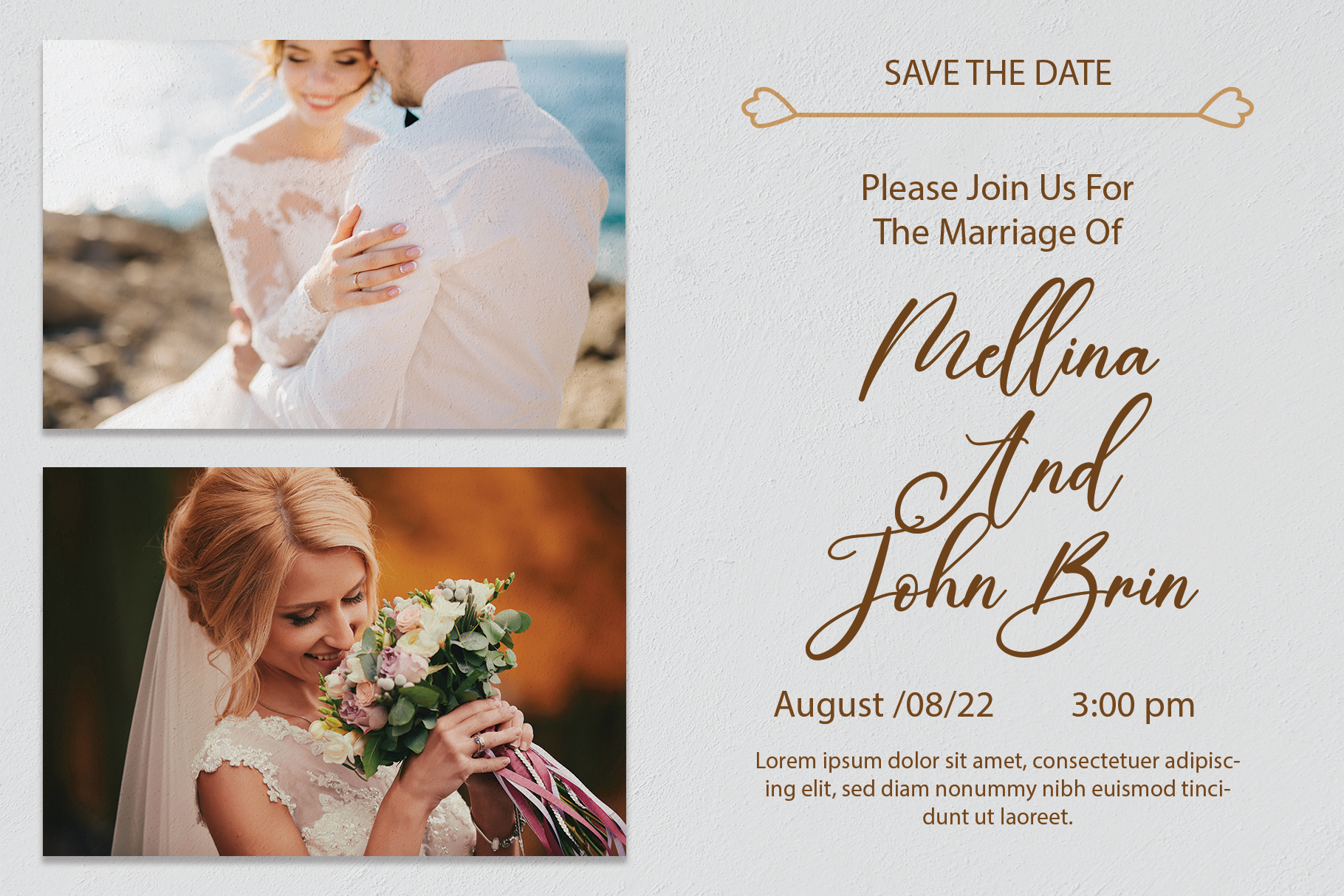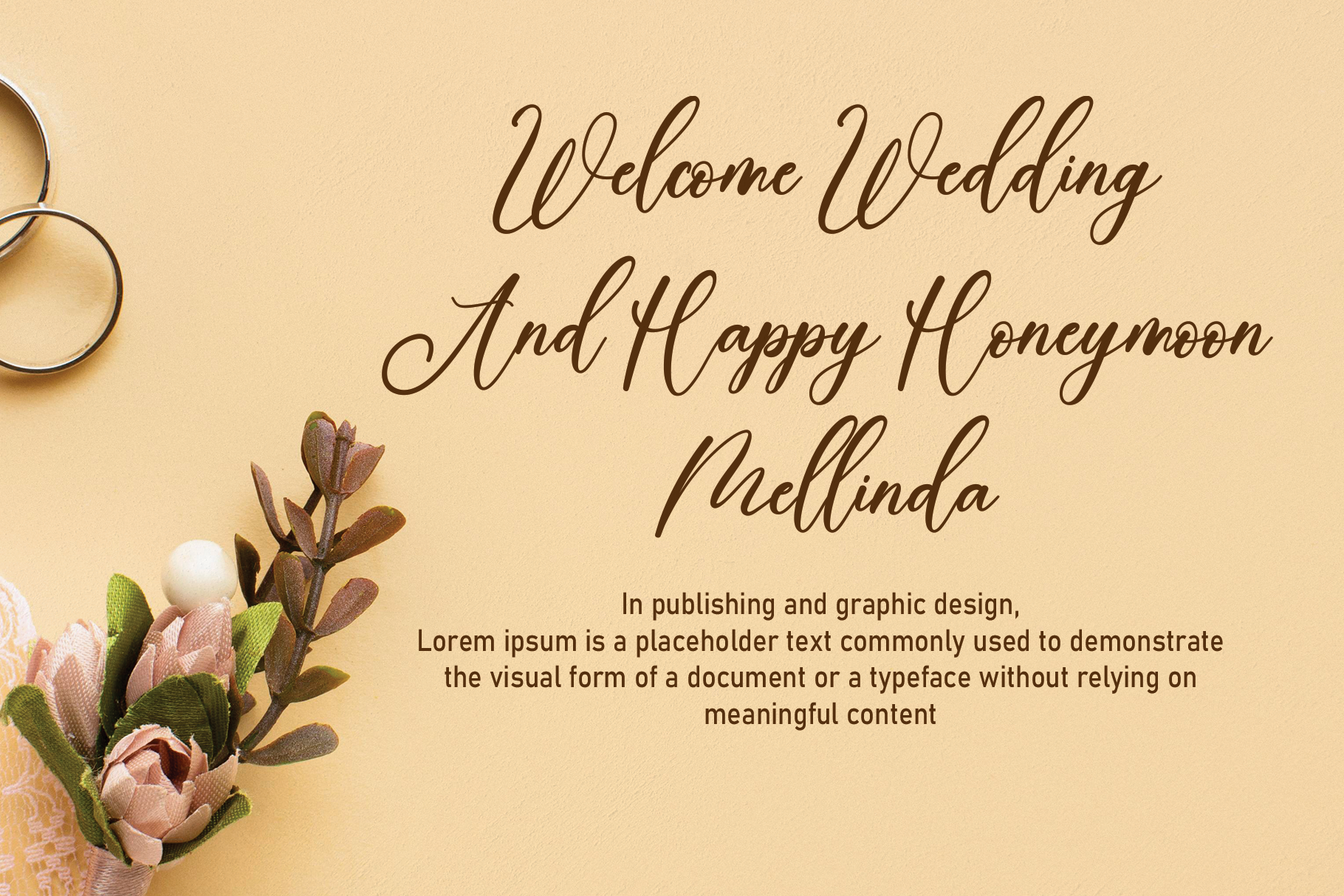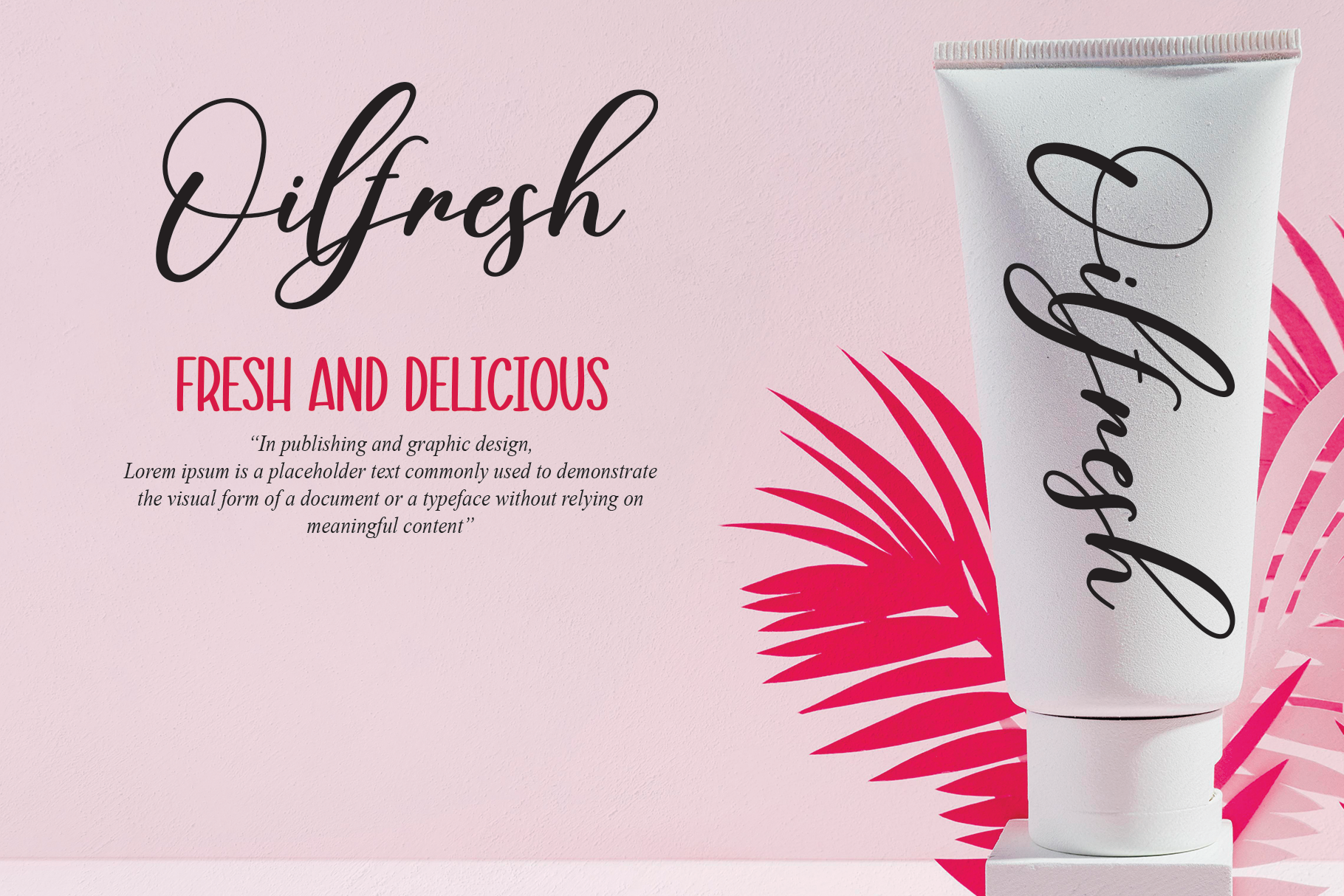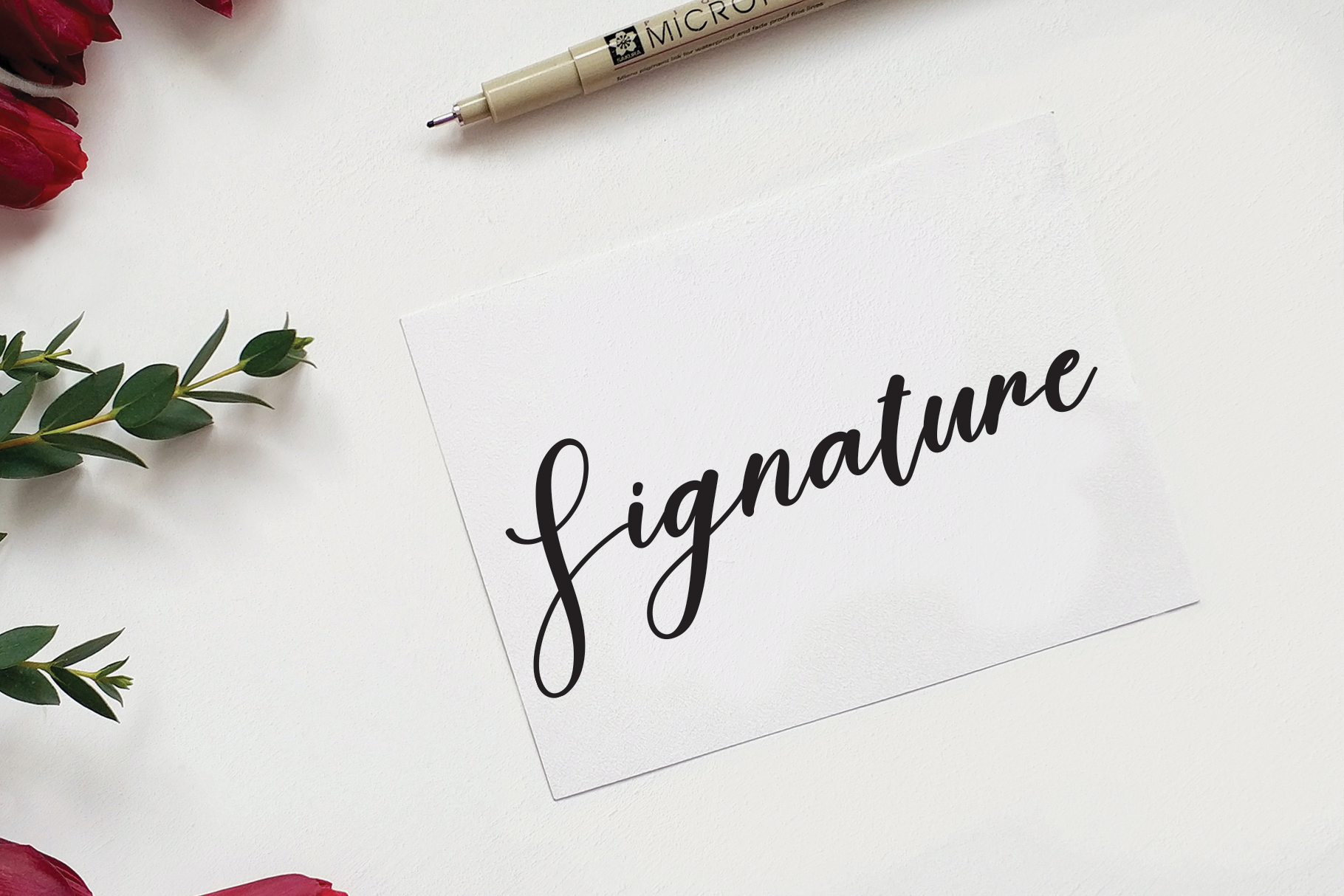
Calligraphy Brilliant Font
Calligraphy Brilliant Script Font
This is a fashionable and delicate script font. It is suitable for any projects such as: logos, branding projects, label, photography, watermark, special events, and all your other lovely projects that need a beautiful script taste.
the latest style letters are perfect for wall displays, wedding invitations, social media post logos, advertisements, product packaging, product designs, labels, photography, watermarks, invitations, stationery, and any project that requires taste handwriting.